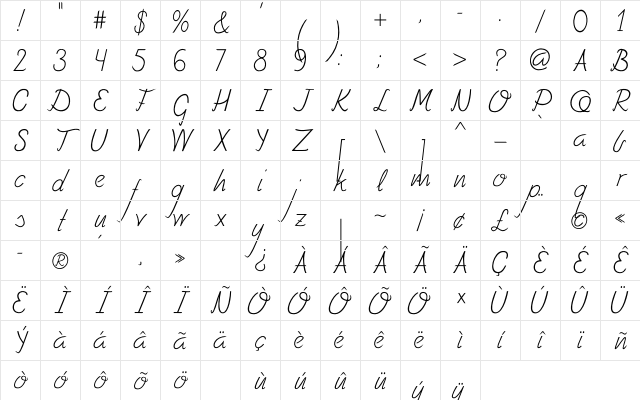
Fely Regular Free Font
Fely Regular
Complete Fely Regular glyph index. Displaying only characters natively supported by Fely Regular font.
Design Context for Fely
Fely is a composed and adaptable typeface that performs quietly and consistently across a wide range of design contexts.